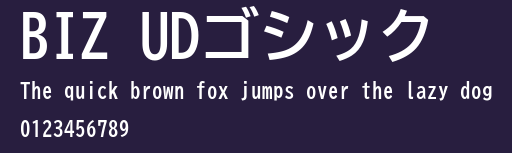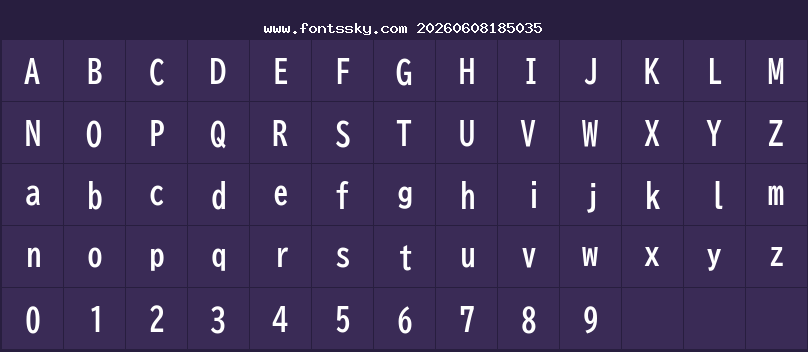
BIZ UDゴシック Preview
• Font Name: BIZ UDゴシック
• Font ID: 001;MRSW;BIZ-UDGothic-Bold
• Full Font Name: BIZ UDゴシック Bold
• Version: Version 1.05
• PostScript Name: BIZUDGothic-Bold
• Character Count: 11741
• Designer: TypeBank Co., Ltd.
• Manufacturer: Morisawa Inc.
About BIZ UDゴシック.ttf
BIZ UDゴシック.ttf is a modern, elegant sans-serif font designed for ultimate readability and visual harmony. Perfect for branding, headlines, web design, and print materials.